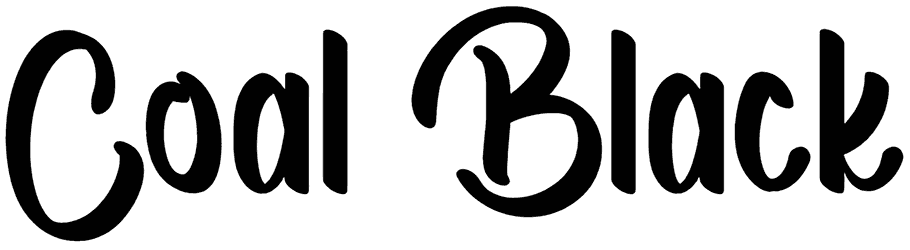
Coal Black Font
The first thing that grabs your attention when you look at the Coal Black font is its cool style. This script font is designed in two versions, which may help you on various occasions, such as posters, flyers, and advertisements.
The shadow version of the Coal Black feels 3D, while this font does not support numbers and symbols. Its letters have a curvy shape with soft edges, sending a friendly vibe, so it is suggested to try this stunning font.